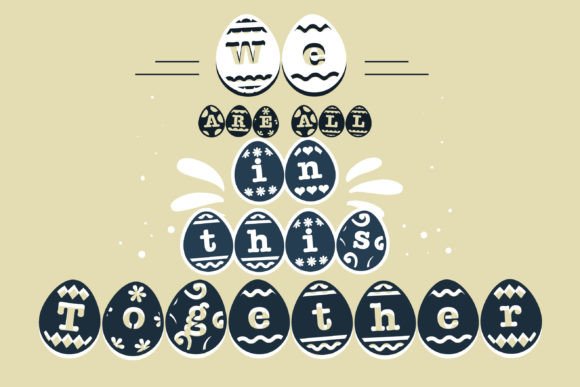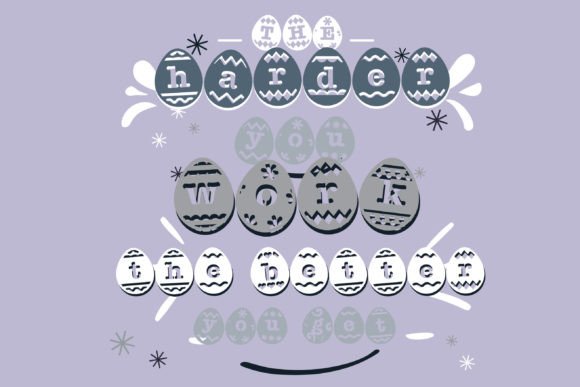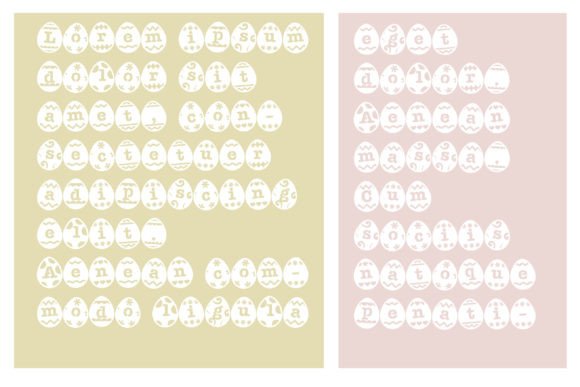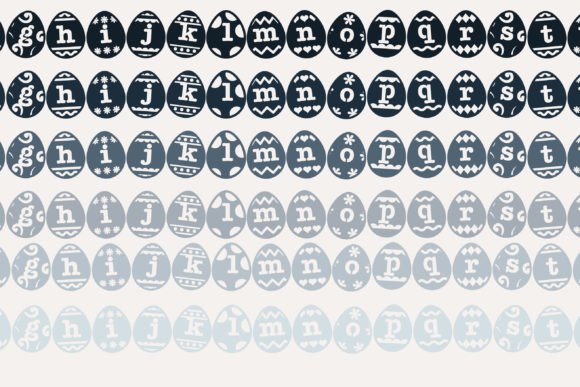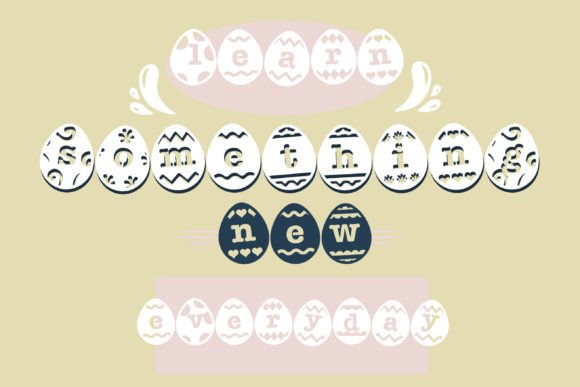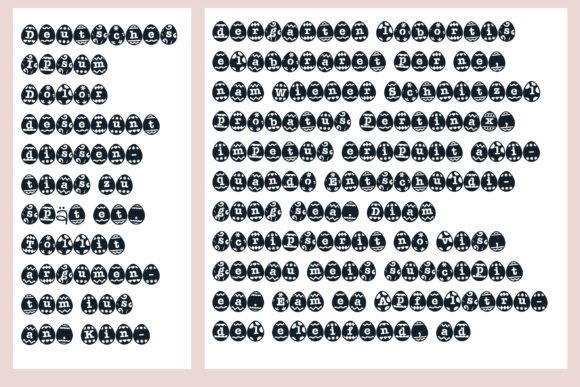
Introduction to Easter Egg Stencil Font
This font is a charming and stylish option that’s perfect for designs that need a touch of cuteness.
Each letter is nestled inside a cute egg shape, giving it a playful and whimsical feel The decorative accents and bold lines create a unique and eye-catching look that’s sure to delight.
Easter Egg Stencil Font offers exceptional quality and versatility, making it a valuable addition to your design toolkit. Whether you’re creating for personal projects or commercial use, Easter Egg Stencil Font delivers professional results.